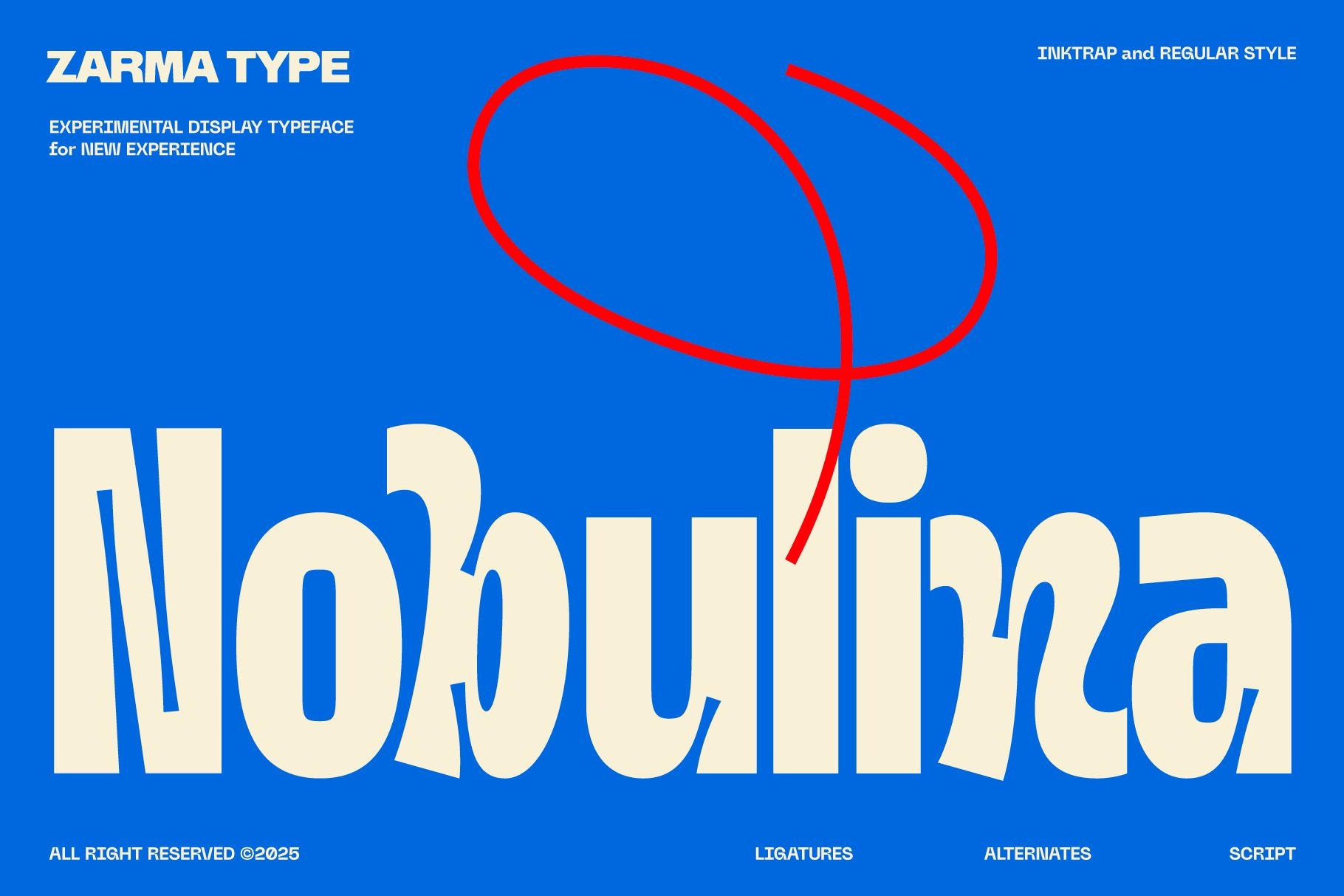
Nobulina – Experimental Display Font
Nobulina – Experimental Display Font is a versatile font designed to adapt beautifully across different design styles, offering dependable readability and balance. Nobulina is an experimental display font that fuses the brutalist edge of condensed sans with the fluid motion of expressive script. Designed with intentional tension between structure and flow, this font brings industrial strength and expressive charm into perfect balance. The inktraps aren’t just functional—they’re stylistic punches that emphasize form while guiding the eye. Whether used in branding, posters, or editorial headlines, Nobulina stands out as a high-contrast type system with an unmistakable voice.
From gritty urban projects to high-impact layouts, Nobulina dares to mix genres. It effortlessly blends rigid geometric elements with unexpected alternates and stylistic twists. The result is a font that feels bold, technical, and human all at once. With both script and condensed sans versions included, you can build layered identities, brutalist packaging, or experimental compositions that break the grid—without losing clarity.